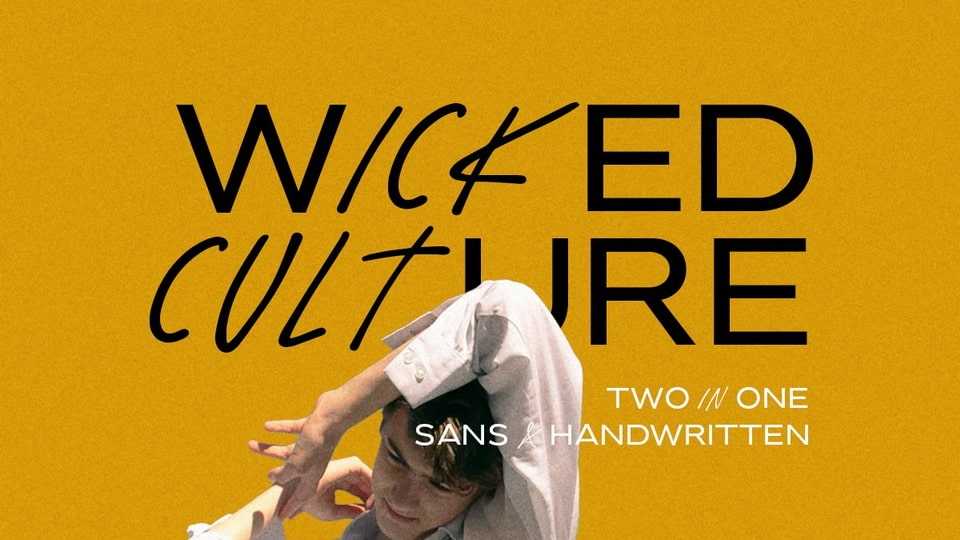
Download Wicked Culture font, a modern, unique and incredibly cool display typeface that combined sans and handwritten typeface in one font. You can use Wicked Culture font for magazine titles, posters, logos and so much more.